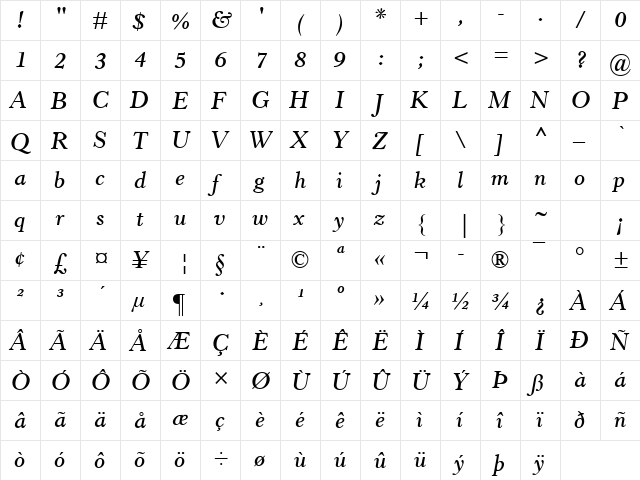
Horley OS MT Semibold Italic Font Preview
Design Context for Horley OS MT Semibold Typeface
Horley OS MT Semibold takes a measured approach to typography — its balanced proportions and neutral character make it a reliable workhorse for both digital and print work. The dynamic lean of this cut emphasises speed and emphasis in any layout. The heavy weight commands attention and anchors typographic hierarchies.
Pro Tip: Use Horley OS MT Semibold for emphasis, pull quotes, and subheadings where its slanted energy can add rhythm to the layout.